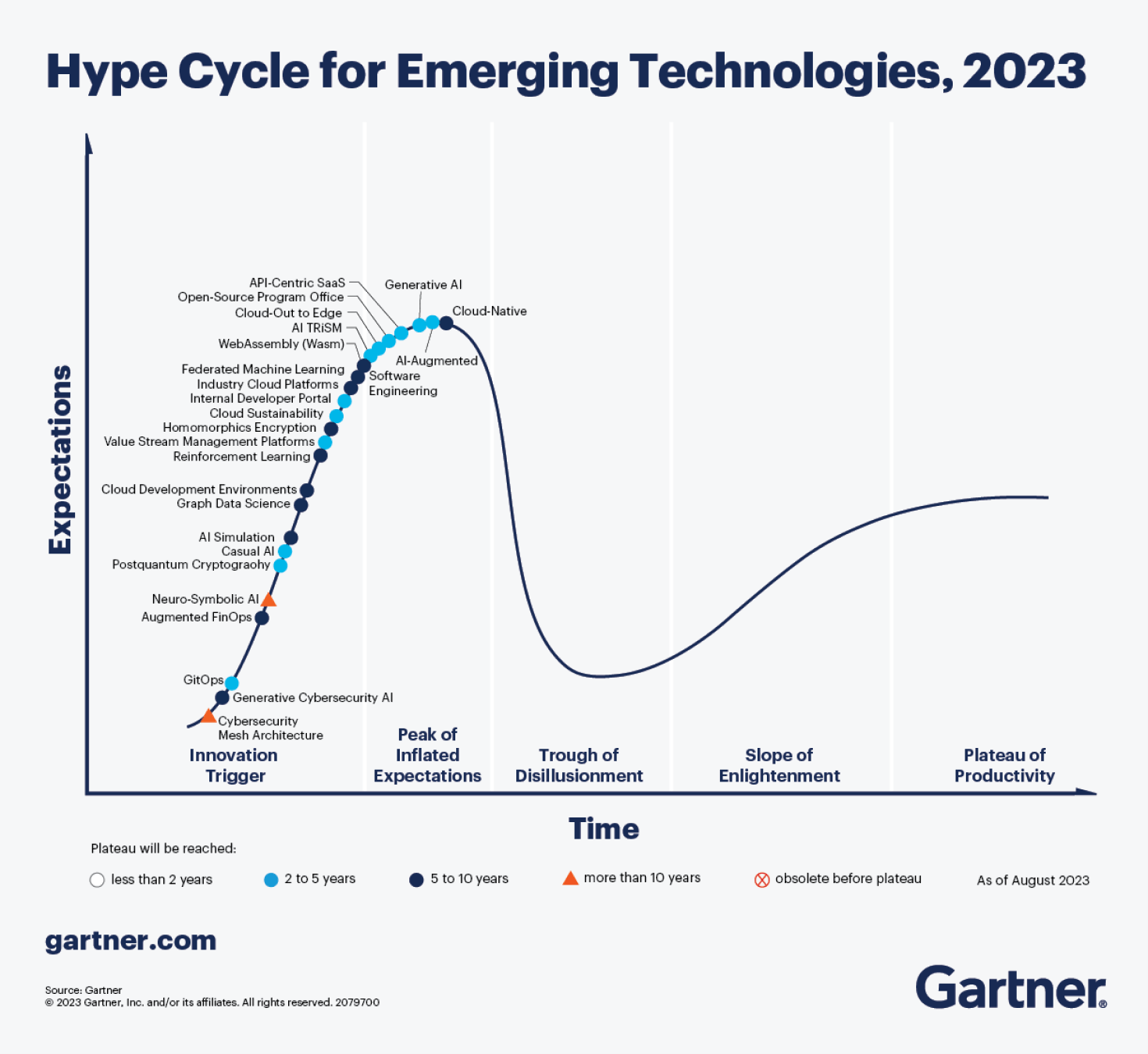
More than 200 designers voted in a blind test — the result is not what you’d expect.
You’ve heard about it. It’s in your inbox every day, it’s in the news, it’s in social media. People are so excited about AI that they just can’t stop talking about it. AI can generate beautiful art, it can code and ship production-ready code, write articles, come up with design ideas and generate mockups, UI and prototypes, and it can even be a personal assistant.
With all those AI capabilities you can’t help but wonder — is AI coming for my job? Will it replace programmers, writers, and designers? Or is it just hyped up beyond realistic expectations and capabilities?
If you look at the 2023 Gartner Hype Cycle for Emerging Technologies (Fig 1) you can spot the generative AI sitting at the top of the Peak of inflated expectations stage. That means a reality check is coming and the hype will settle down once it reaches the next stage — the Trough of disillusionment.
<strong>Fig 1</strong>: Generative AI sitting on top of “Peak of inflated expectations” stage.
Fig 1: Generative AI sitting on top of “Peak of inflated expectations” stage.
Will AI ever be able to do the things that took you years to master? I already dipped my toes into the AI Designer hype with the blog post Is AI better at picking and pairing fonts than you? My conclusion there was that AI’s current typographic capabilities are at the level of a junior designer. Now, I want to put that to the test.
Test setup
The test is simple: two designers, each with their font pairing versus two pairings by AI. The font pairings are then presented in a UsabilityHub preference test where test participants pick their preference without knowing whether it’s by AI or a human designer.
Designer 1: To make the test interesting and the result more convincing, I decided to invite another designer to compete against AI with me. I asked Hrvoje Bieleń, a senior UI designer at pointjupiter.com, with a professional career spanning over 25 years.
Designer 2: I’m a product designer, a type geek, and the author of the Better Web Type project (this website) and the Better Web Typography for a Better Web book.
AI: In the AI corner of the ring, we have ChatGPT, a large language model–based chatbot developed by OpenAI. It scrapes the content from the internet and other publicly available resources to learn.
The task: The heading font was already selected — DM Serif Display (Fig 2). Designers and AI had to find a good match for body text. The prompt I used for ChatGPT was What is the best open-source font for body text pairing with DM Serif Display?
<strong>Fig 2</strong>: The DM Serif font was already selected for the headings.
Fig 2: The DM Serif font was already selected for the headings.
A preference test in the UsabilityHub shows two options, side-by-side to a test participant (Fig 3). The participants can zoom in and pick the one they prefer when they’re ready. The test can have multiple variants to pick preferences for. If you want to see how the test works or just add your vote, it’s still live here.
<strong>Fig 3</strong>: A screenshot of the preference test in UsabilityHub.
Fig 3: A screenshot of the preference test in UsabilityHub.
Let’s see what the designers and the AI came up with, and who won! Who are you rooting for?
Designer 1 vs. AI
In the first face-off, we have the Assistant font take on Lora (Fig 4). Before I tell you who picked them, which one would you choose?
<strong>Fig 4</strong>: Assistant takes on Lora.
Fig 4: Assistant takes on Lora.
Done? Okay, now I can tell you who picked the fonts: Hrvoje picked the Assistant font and ChatGPT picked Lora.
Here’s how Hrvoje explained his decision to pick Assistant:
I was looking for sans-type families with similar features, like the lowercase letter g, somewhere between closed and open shapes of letters a and s. I also wanted to find a typography that would feel a little condensed but still was wide enough to be used as a body text. After a thorough search on Google fonts, I picked a variable font Assistant by type designer Ben Nathan. It lacks italics, but in all other aspects, I feel it accompanies DM Serif Display pretty fairly. It has pretty open shapes, but the terminals are slightly pointing inward, thus giving the feel of the intent of closing the shapes — like it was frozen in the attempt. Some angles follow a similar direction to that of DM Serif Display. Both families have similar x-heights, which gives this pairing even more credibility.
Here’s what his pairing looks like (Fig 5):
<strong>Fig 5</strong>: The pairing of Assistant and DM Serif by Hrvoje.
Fig 5: The pairing of Assistant and DM Serif by Hrvoje.
Here’s how ChatGPT explained its choice of Lora:
Lora is an open-source serif font designed by Olga Karpushina. It has a classic and elegant appearance that works well for body text. Lora’s moderate contrast and well-defined letterforms make it a suitable companion for DM Serif Display, maintaining a cohesive and refined aesthetic. Using DM Serif Display for headings and Lora for body text can create a balanced typographic pairing that offers contrast while maintaining readability. The combination exudes a sense of sophistication and elegance.